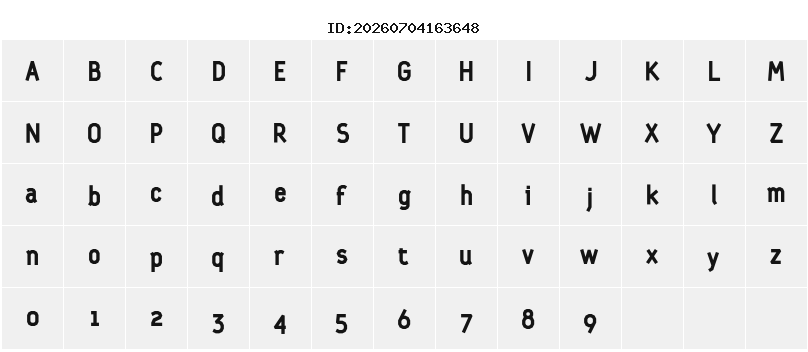
Dubius Preview
• Font Name: Dubius
• Full Font Name: Dubius-Bold
• PostScript Name: Dubius-Bold
About Dubius.otf
Dubius.otf is a modern, elegant sans-serif font designed for ultimate readability and visual harmony. Perfect for branding, headlines, web design, and print materials.